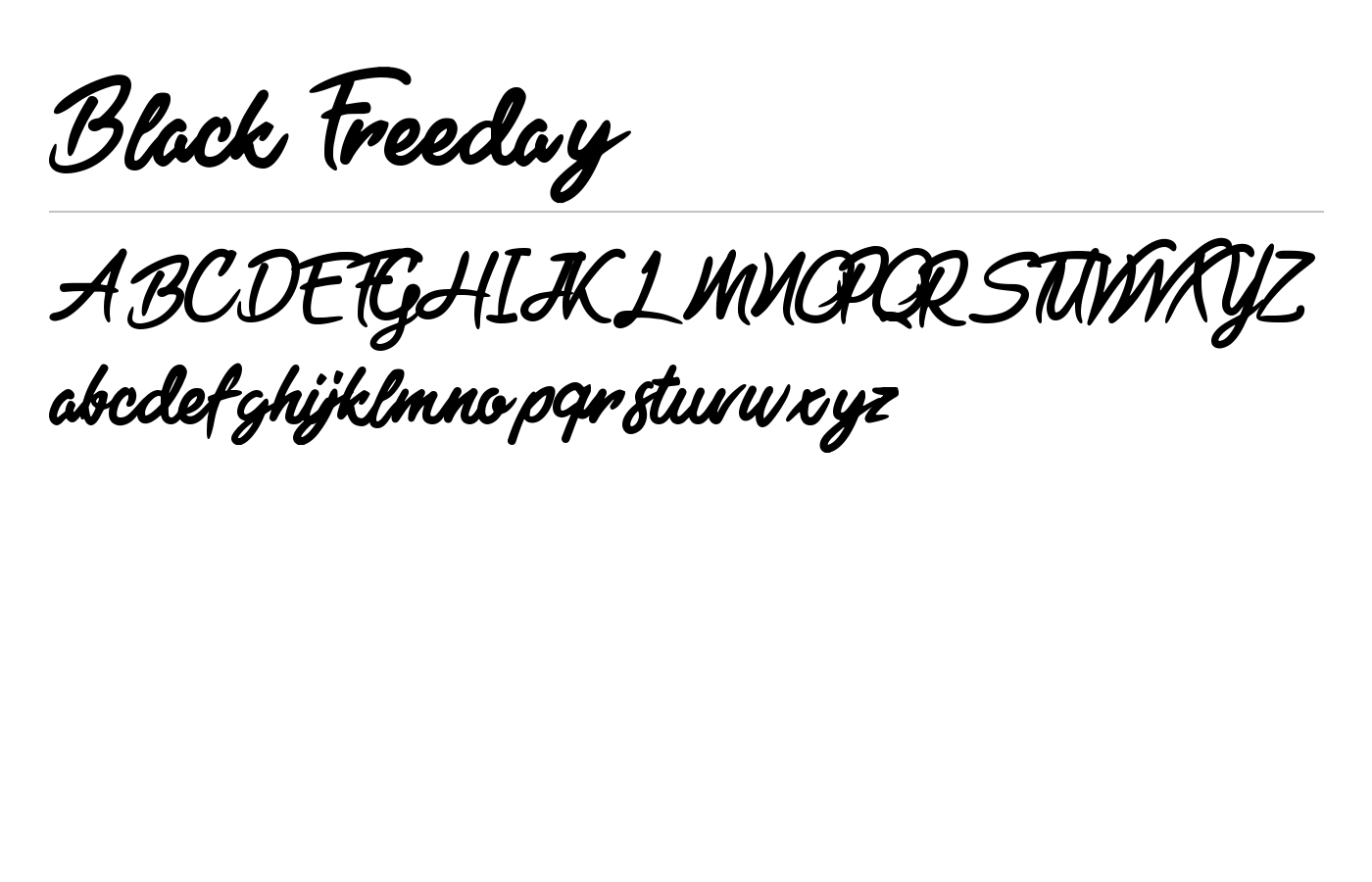
Black Freeday is a bold, energetic script font with a casual, handwritten style that feels lively and approachable. Its thick, flowing strokes and slightly slanted letters make it perfect for creating dynamic headlines, logos, and branding with a personal, friendly touch. This font works well where a bold, modern yet informal vibe is desired, such as fashion, lifestyle, and creative projects.
Black Freeday Font